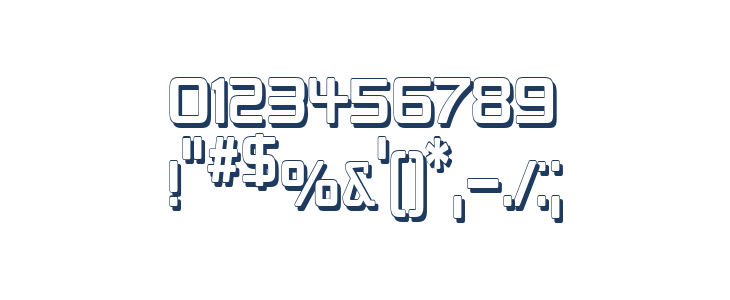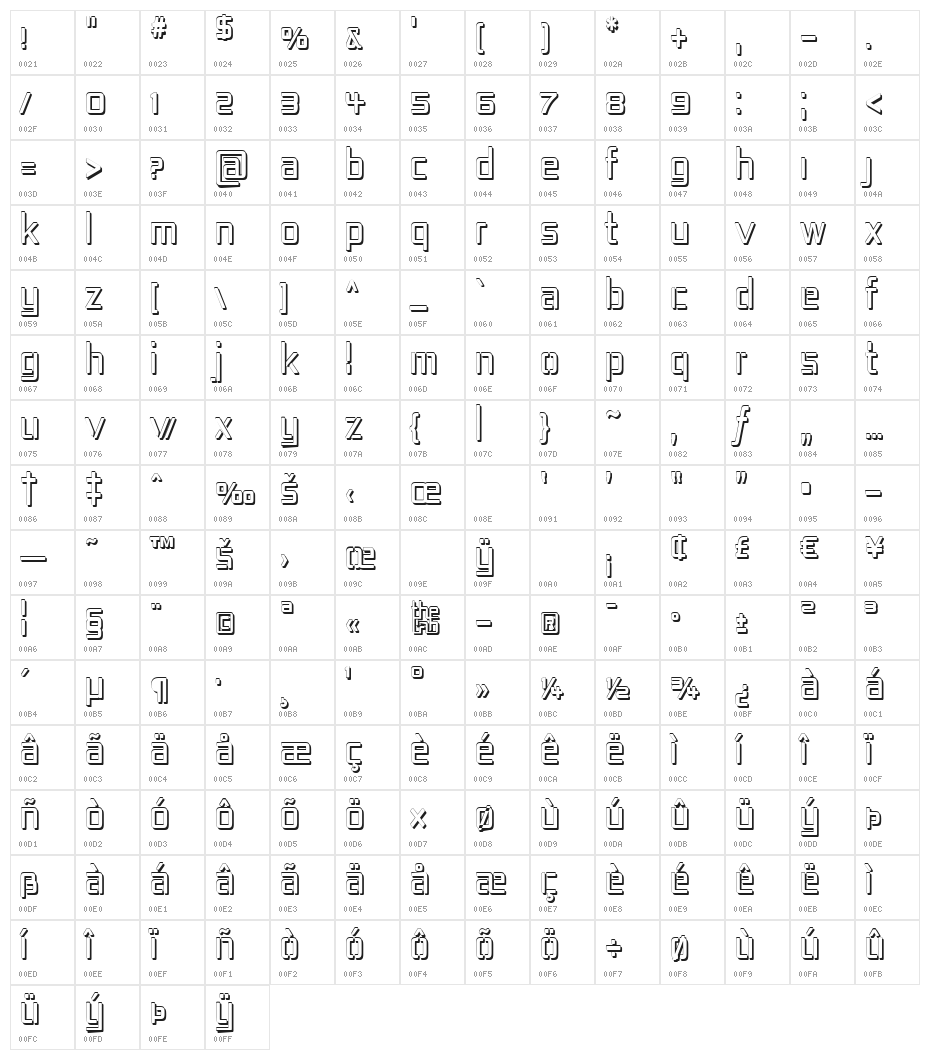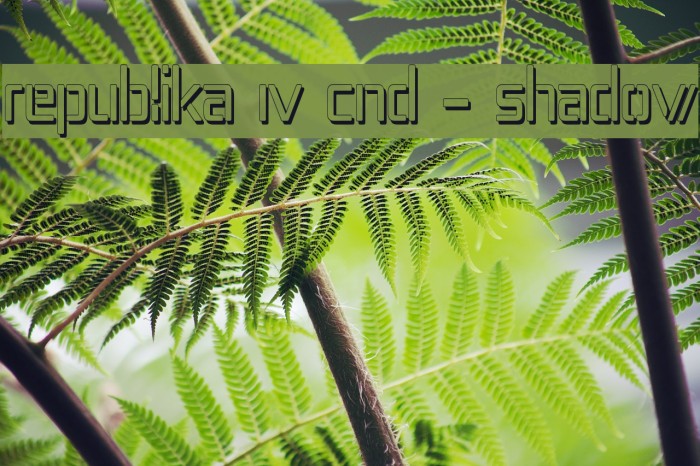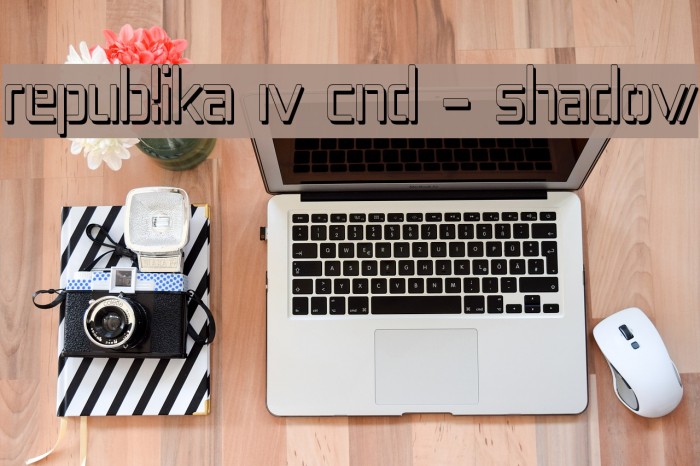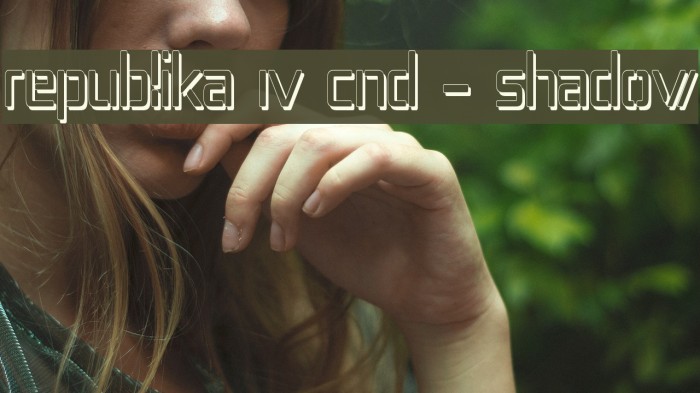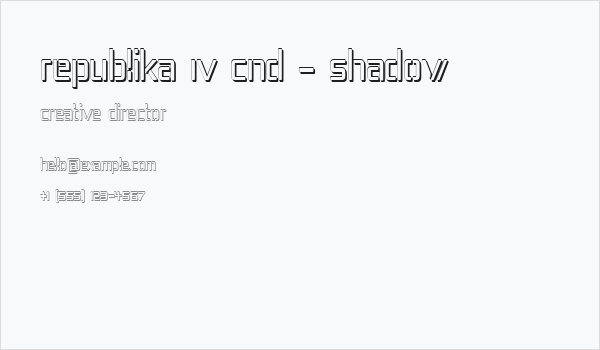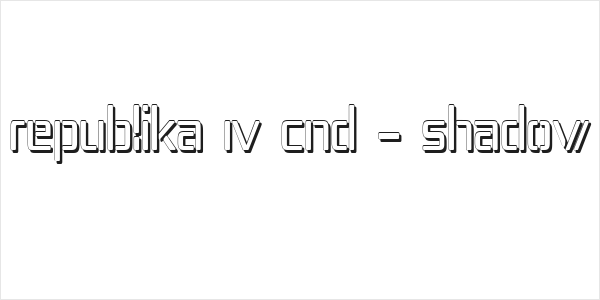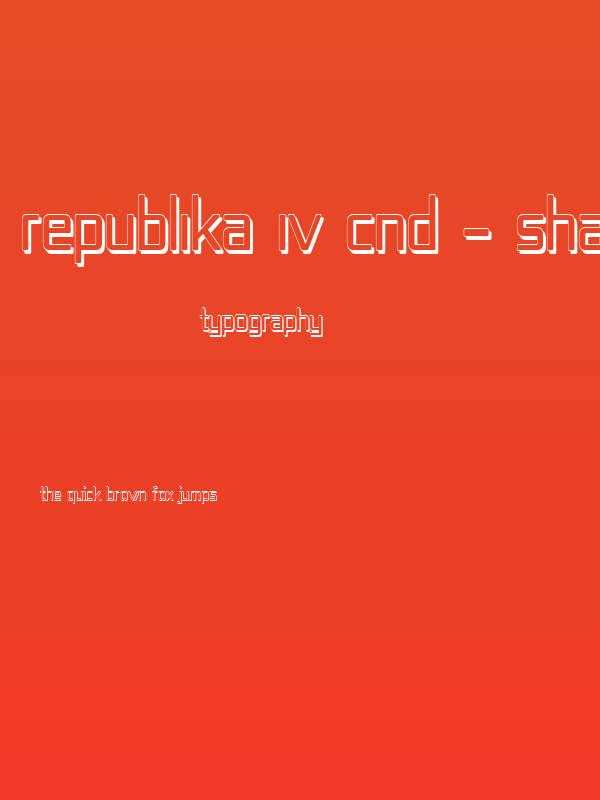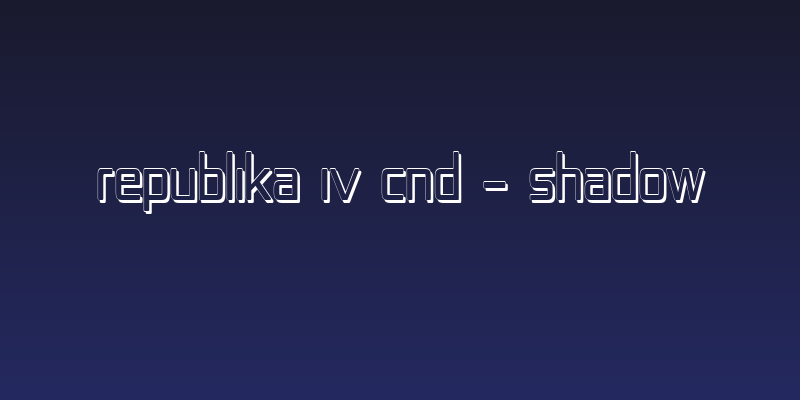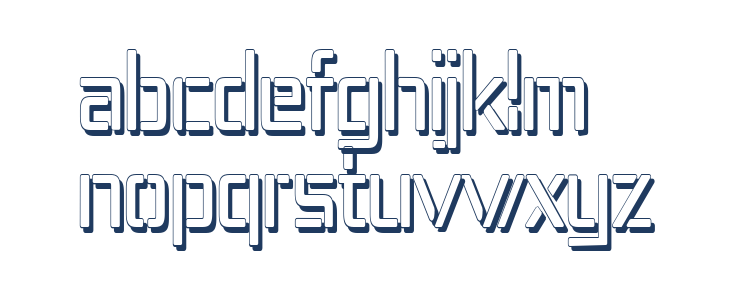
Republika IV Cnd - Shadow Font
Republika IV Cnd - Shadow Description
This font features a bold, geometric design with a shadow effect that adds depth and dimension to the characters. The letters are structured with clean, straight lines and sharp angles, giving it a modern and futuristic appearance. The shadow effect is consistent across all characters, enhancing the three-dimensional look. The font maintains a uniform stroke width, contributing to its bold and impactful presence. The characters are evenly spaced, ensuring readability while maintaining a compact and cohesive look. This style is particularly suitable for creating eye-catching headlines and titles.
| Proposed Projects | This font is perfect for projects that require a modern and bold aesthetic, such as technology branding, futuristic posters, video game titles, and digital media graphics. |